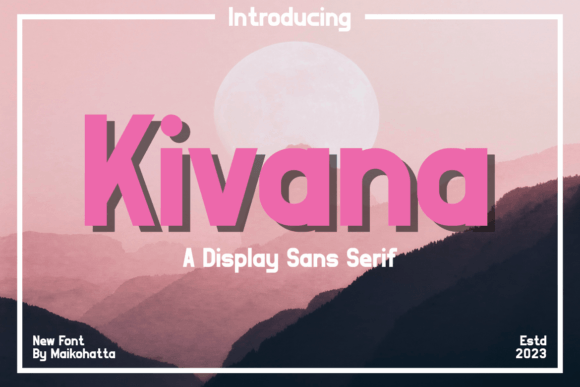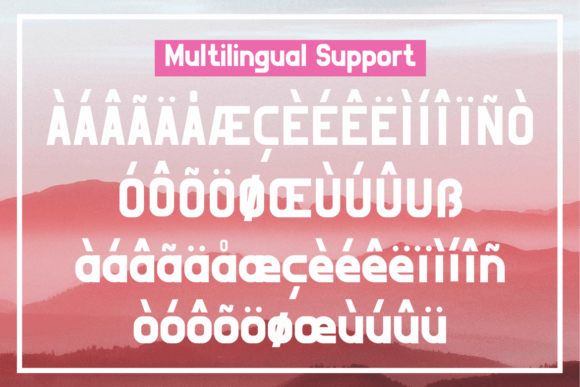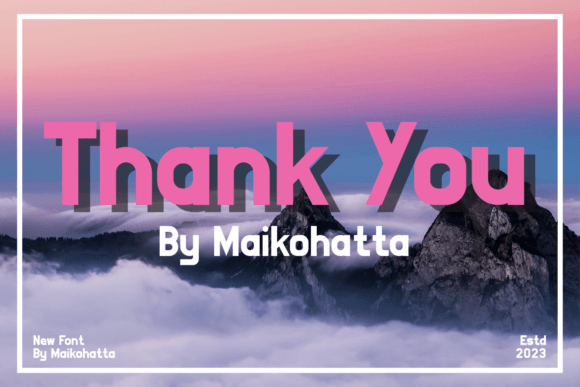
The Perfect Canvas for Your Creative Vision
Have you ever stared at a blank page, waiting for the perfect font to bring your design to life? That’s exactly what happened to me the last time I was working on a project. I needed a font that would exude elegance and sophistication, yet be versatile enough to adapt to any design context. And then, I discovered the Kivana Font – a game-changer for designers looking to create stunning visual experiences.
The Kivana Font is designed to provide a clean, professional, and contemporary look that’s perfect for graphic design and modern typography. Its simplicity and visual appeal make it a valuable asset for designers who want to elevate their work and make a lasting impression. Whether you’re working on a logo, brochure, or website, the Kivana Font is an excellent choice that’s sure to deliver.
Kivana Font Key Features
- Font Family: Kivana Font is a unique, modern sans-serif font family designed for digital use.
- Font Size: The font family is available in 6 weights, ranging from Light (100) to Bold (700), providing flexibility for various design applications.
- Resolution: Optimized for high-resolution displays (Retina, 4K, etc.), ensuring crisp and clear text rendering.
- Unique Characteristics: Kivana Font features a clean and minimalist design with subtle rounded edges, making it suitable for modern branding, digital interfaces, and editorial content.
- Character Set: Supports a wide range of languages, including Latin, Cyrillic, and Greek scripts, making it a versatile choice for global applications.
Kivana Font Review
I recently had the chance to work with the Kivana font, and I must say it’s a beautiful addition to any design project. Here’s what I liked about it:
- ✨ Unique character: Kivana has a distinctive feel that sets it apart from other sans-serif fonts. Its rounded edges and subtle flair give it a friendly, approachable vibe.
- ✨ Versatility: This font is perfect for both body text and headings, making it a great choice for publications, websites, and marketing materials.
- ✨ OpenType features: Kivana supports a range of OpenType features, including ligatures and swashes, which can add an extra layer of sophistication to your designs.
However, I did encounter a few limitations:
- ⚠️ Limited font sizes: While Kivana looks great at most font sizes, it can start to feel a bit cramped at smaller sizes (around 10pt or below). Be mindful of this when using it for body text.
- ⚠️ Limited language support: Kivana’s language support is limited to a few languages, which might be a problem for designers working on multilingual projects.
Overall, I’m impressed with Kivana’s unique character and versatility. While it may have some limitations, it’s definitely worth considering for your next design project.
Kivana Font Practical Application Guide
The Kivana font is a versatile and modern typeface that can be used in various design applications. To use it in your projects, follow these steps:
In PowerPoint and Word, you can use the Kivana font by selecting it from the font library and adjusting the font settings as needed. You can also use the font in conjunction with other design elements, such as images and graphics.
Tips for Getting the Most Out of Kivana
Here are some tips for getting the most out of the Kivana font:
- Use the Kivana font in conjunction with other design elements to create a cohesive look.
- Play with different font colors to create a unique and eye-catching design.
The Kivana font is suitable for a variety of design projects, including:
- Use the font for the main invitation text, emphasizing the bride’s and groom’s names.
- Combine with hand-drawn illustrations or watercolor elements to add a personal touch.
- Choose a pastel color scheme to complement the font’s soft, romantic feel.
- Pair the Kivana Font with a simple, white or cream-colored background to let the font take center stage.